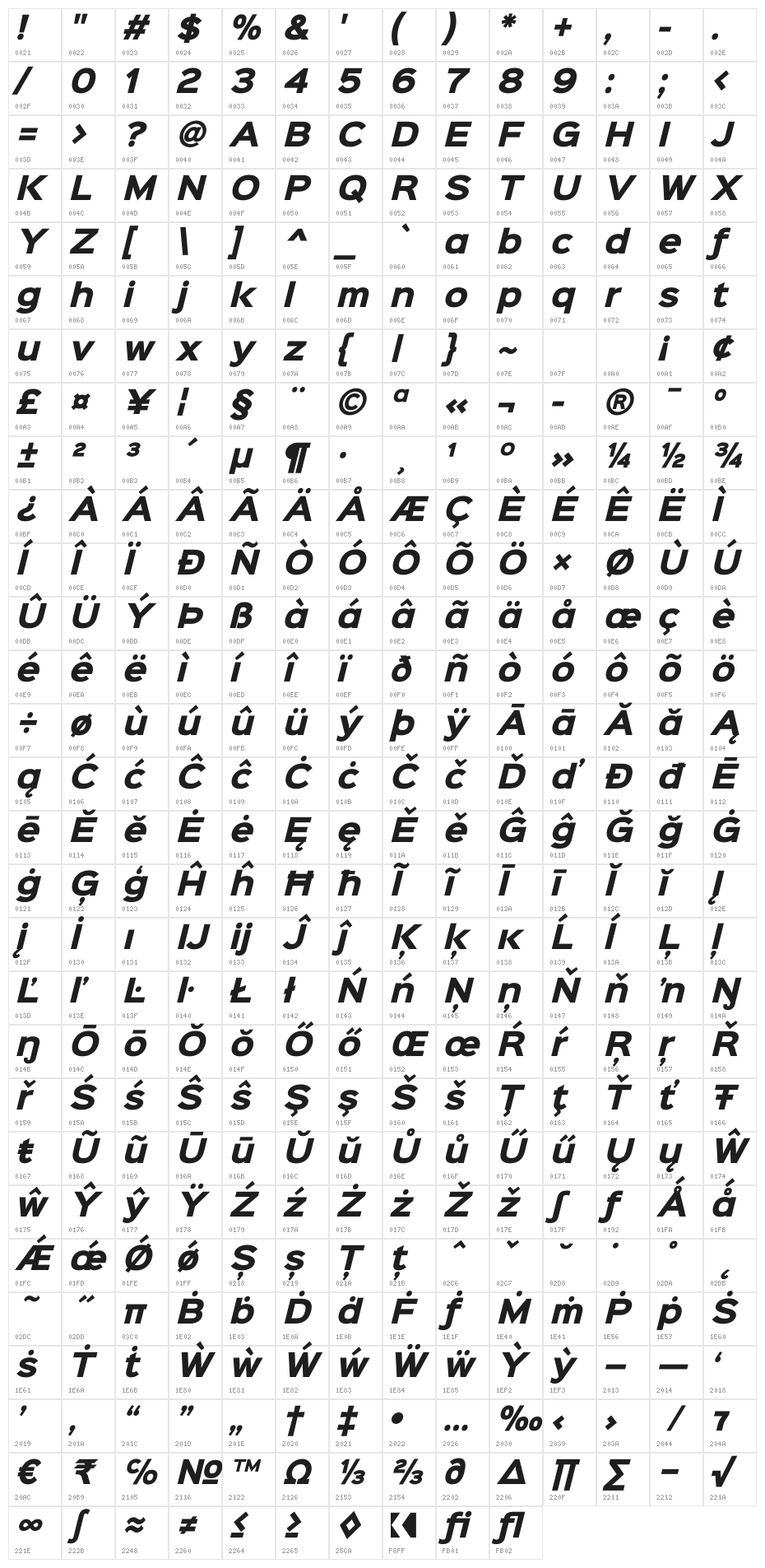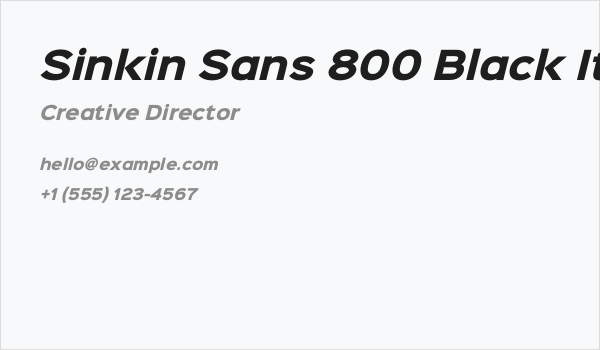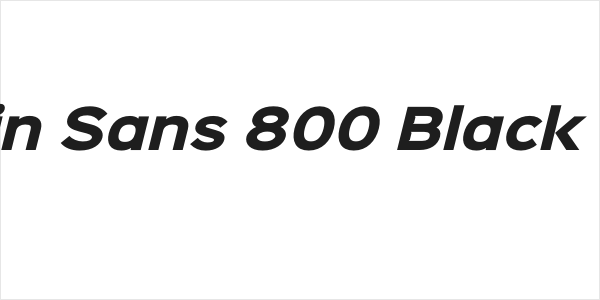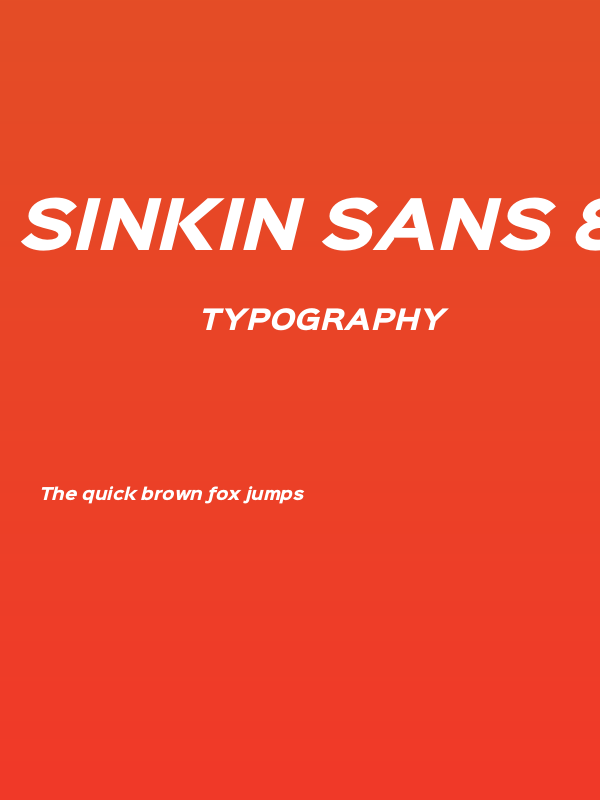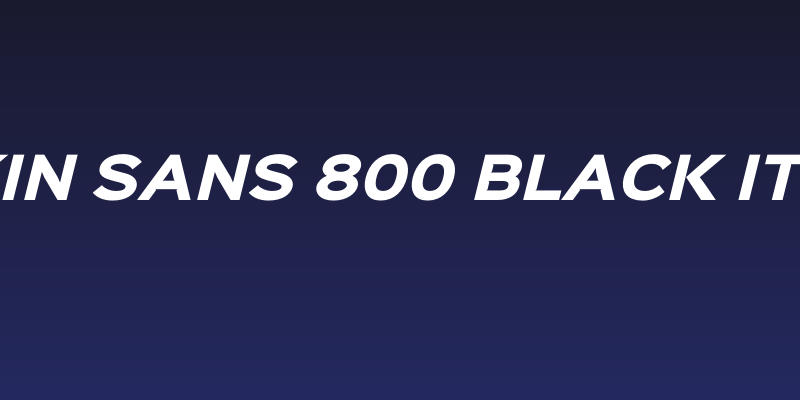
Sinkin Sans 800 Black Italic Font
Sinkin Sans 800 Black Italic Description
This font exhibits a bold and assertive style, characterized by its thick strokes and italicized slant. The uppercase and lowercase letters maintain a consistent weight, providing a strong visual impact. The numerals are equally bold, ensuring clarity and emphasis. Special characters are designed with the same boldness, making them stand out effectively. The overall design is modern and sleek, suitable for making a statement. The italic nature of the font adds a dynamic and forward-moving feel, enhancing its contemporary appeal.
| Proposed Projects | Ideal for branding, headlines, posters, and any project requiring a strong visual impact. |